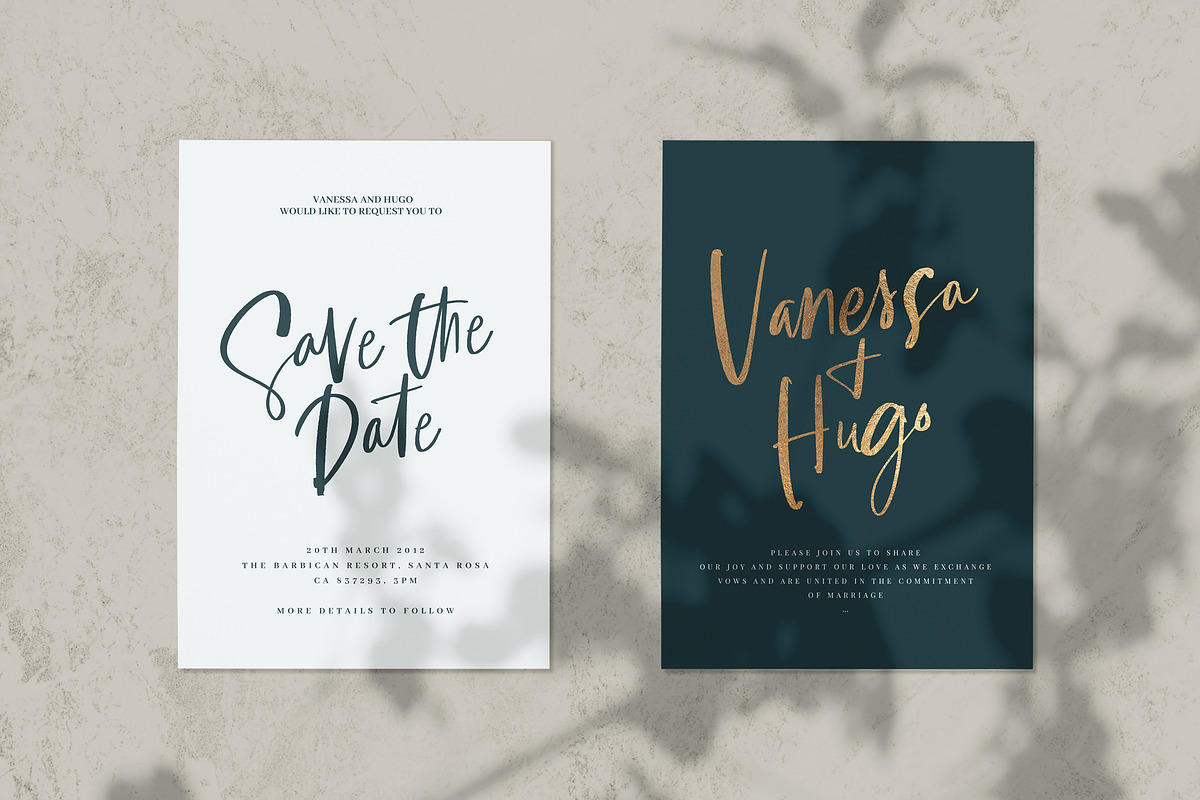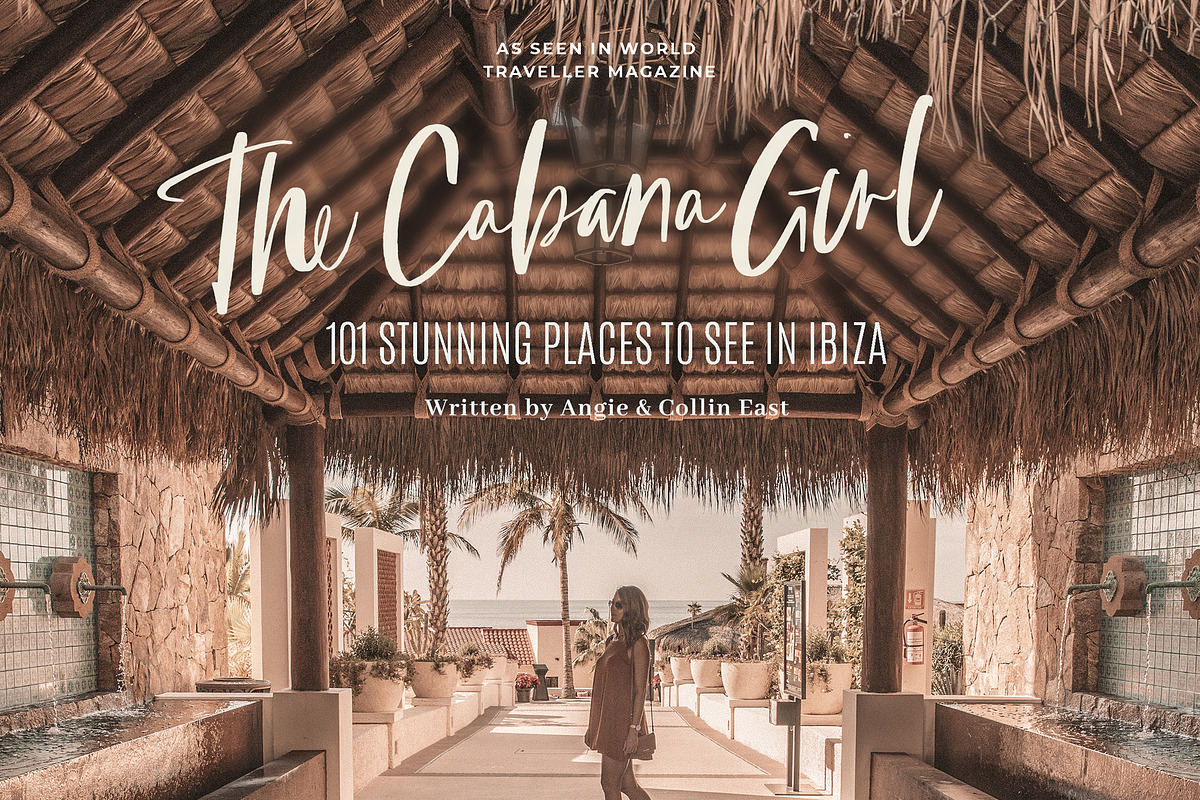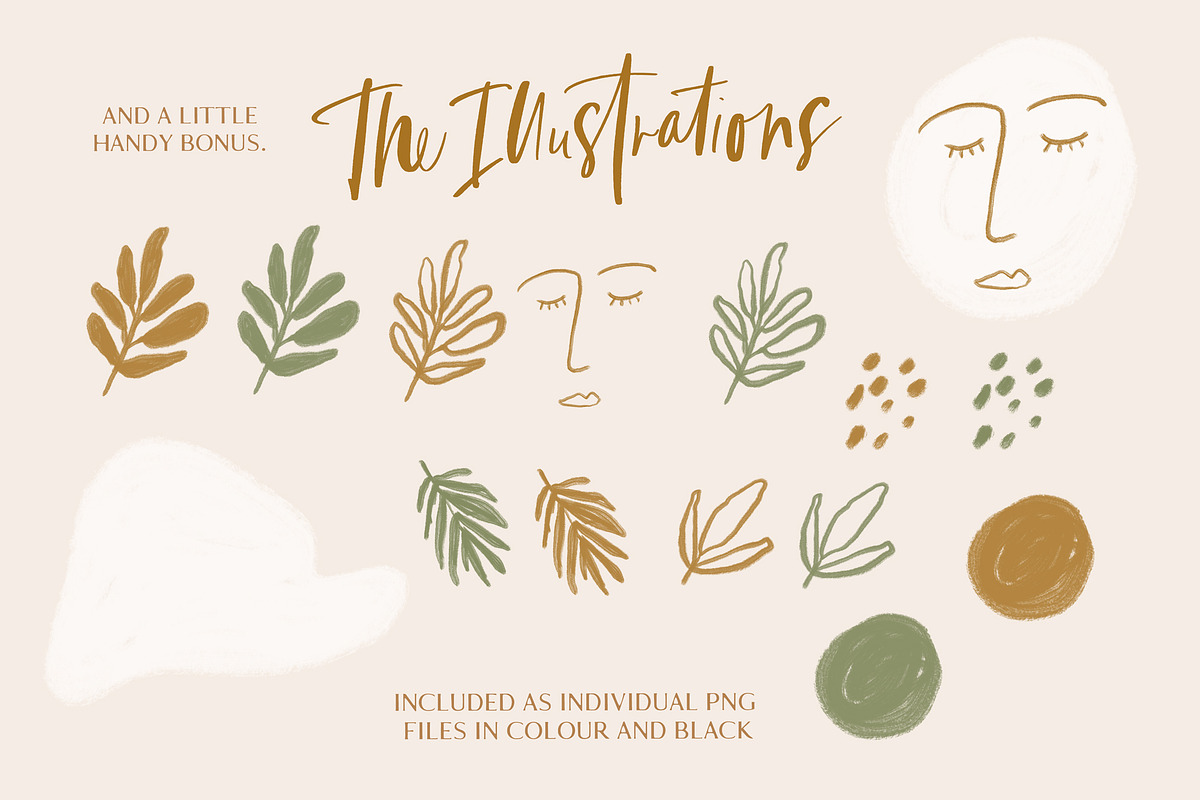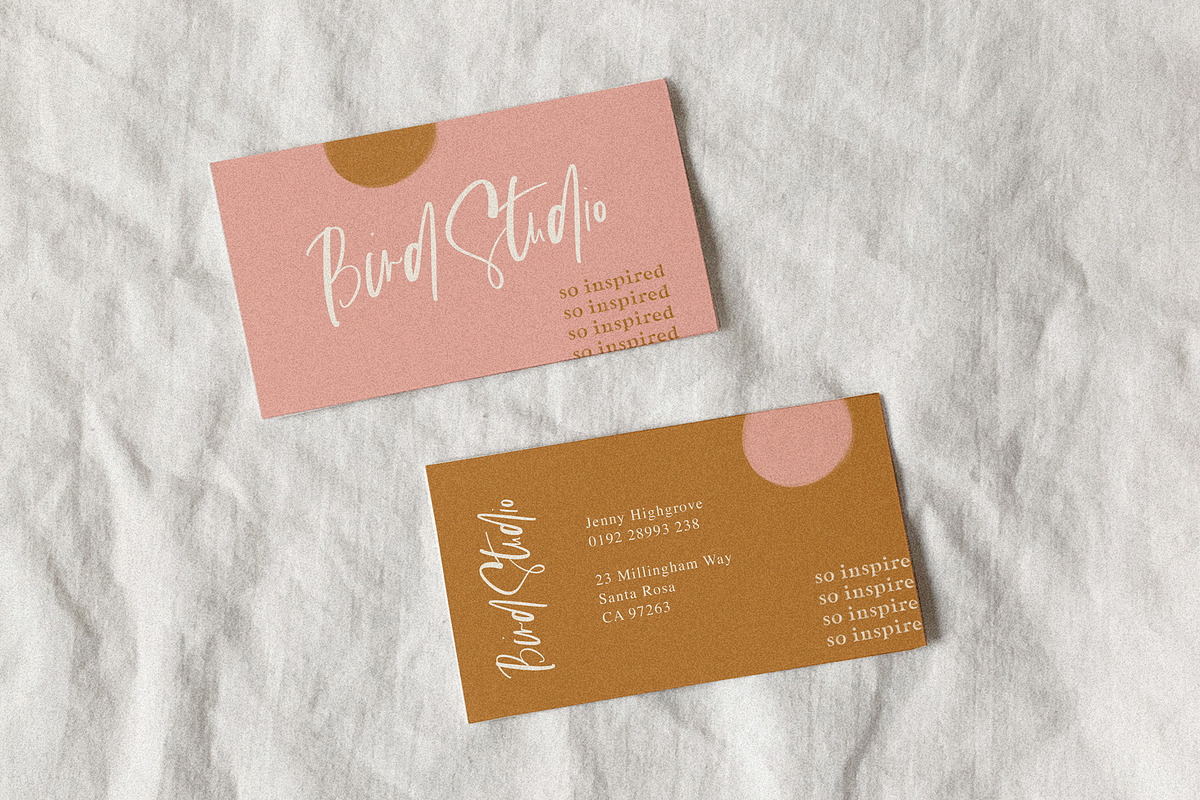
Picasso in Paradise Font
Say hello to 'Picasso in Paradise' - a fresh and avant-garde script with a carefree attitude and a playful edge.
Perfect for adding a quirky but casual feel, Picasso in Paradise comes with a large selection of natural-looking ligatures, that form automatically as you type when you have your OpenType features active.
Oh and last but not least! - As a handy bonus - the illustrations used in the main preview are included for you as individual PNG images.
Picasso in Paradise Font by Nicky Laatz fits naturally into Branding, posters, packaging, typography.